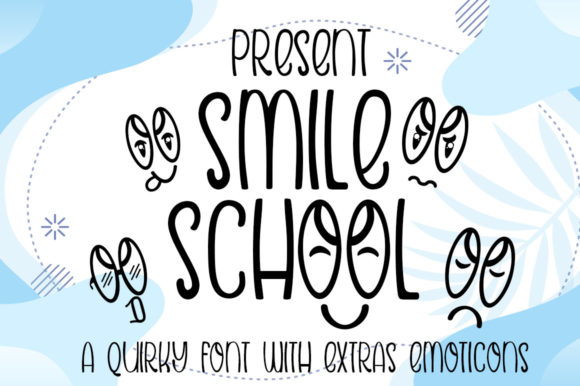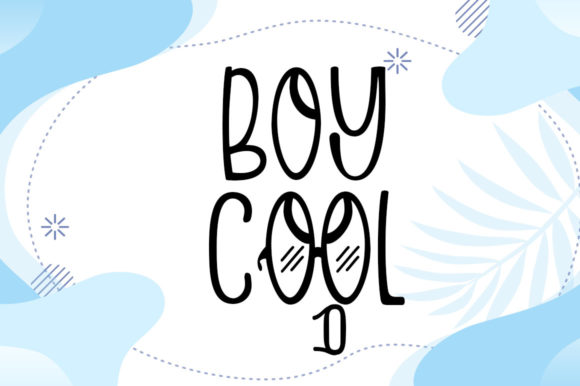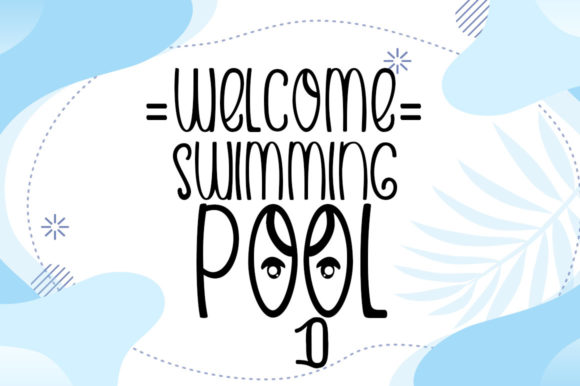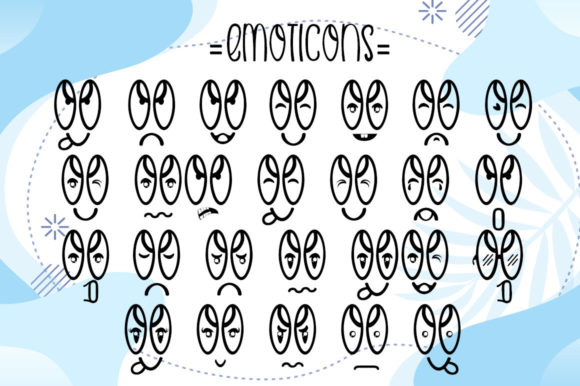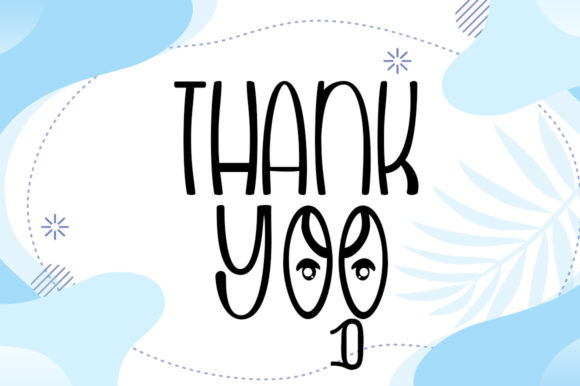
Smile School Font
About Smile School Font
Smile School is a sweet and friendly handwritten font. Its natural and unique style makes it incredibly fitting to a large pool of designs. The only limit is your imagination!